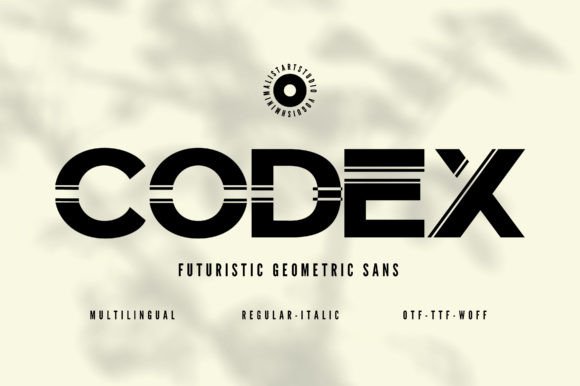
Codex, Classic Display Font for Logos & Editorial Use
Codex is a geometric, futuristic sans‑serif font with minimalist styling and a clean, modern look. With an extensive glyph set and refined letterforms, it’s designed to deliver clarity, versatility, and modern appeal — whether for branding, editorial layouts, digital media, or product design.
- Modern, geometric design — conveys a clean, professional, minimal aesthetic that works across many design styles
- Large glyph set (600+ glyphs) — gives you flexibility with multilingual support, alternate characters, and more design options
- High readability and versatility — good for both display text (headlines, logos) and body text depending on layout
| Style / Feel | Geometric, futuristic, minimal sans‑serif | Neutral sans‑serif — minimal but basic | Decorative or stylized display font — more personality, less versatility |
| Readability & Flexibility | High — works across display, web, print, merch, crafts | Good — simple and clean, ideal for body copy or minimal designs | Medium — good for headlines or decorative use, less suited for long text or versatile design |